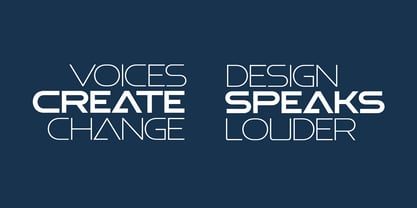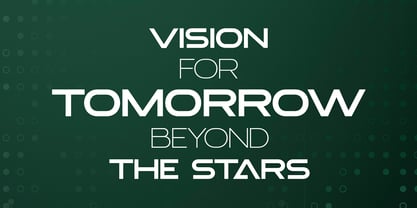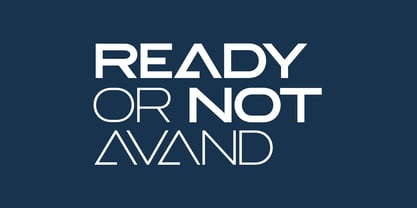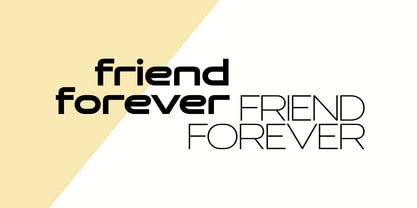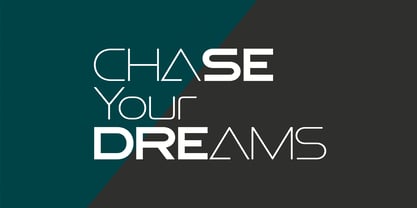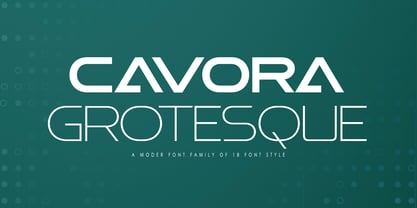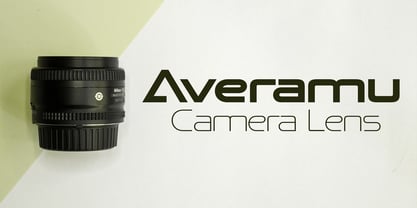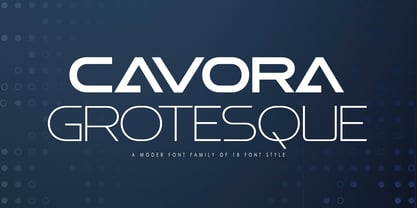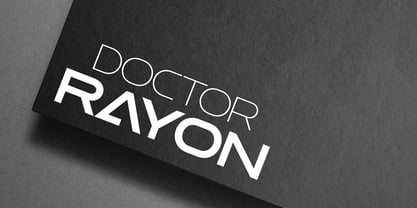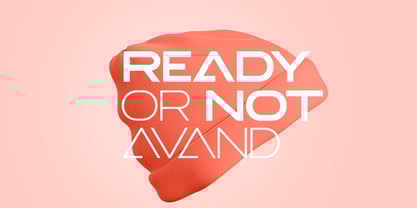
Cavora Grotesque
The Cavora Grotesque Font Family was designed by Muriza Moriztype and published by moriztype. Cavora Grotesque contains 18 styles and family package options. More about this family
Cavora Grotesque - Dignified, luxurious and sharp family font. Cavora Grotesque is a wide variation on the classic Manifold font family. Its clean and elongated form is technically and elegantly elegant. An excellent typeface for titles, logotypes, user interfaces, and short text.
Features
• equipped with upper and lower case letters
• Full Set of standard alphabet and punctuation
• Multilingual Characters (ÁÂÄÀÅÃÆÇÐÉÊËÈÍÎÏÌÑÓÔÖÒØÕŒÞÚÛÜÙẂŴẄẀÝŶŸỲ áâäàåãæçðéêëèíîïìñóôöòøõœþßúûüùẃŵẅẁýŷÿỳŠšž€£¥ªº)